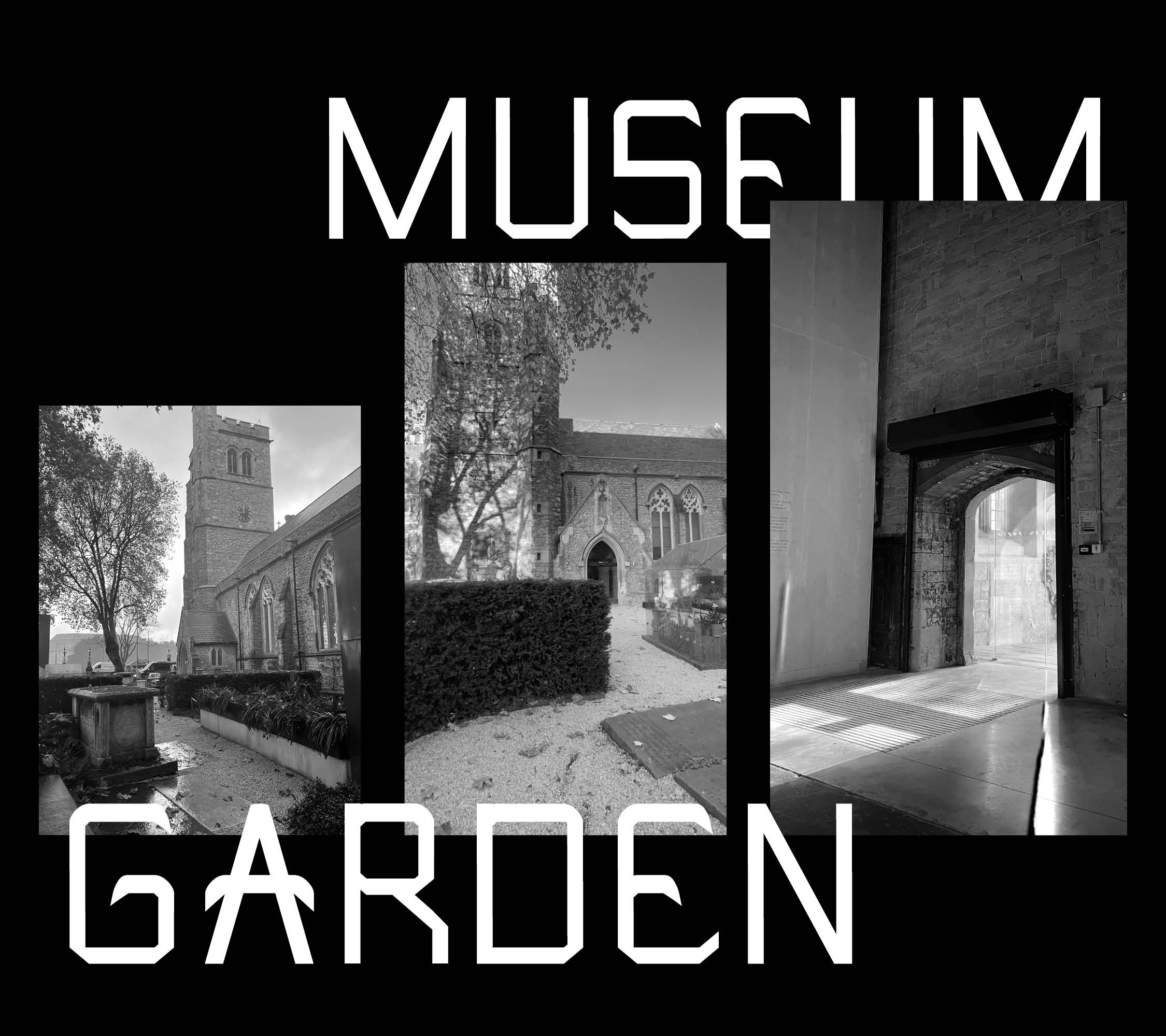
Narrativa is a semi-mono-weight sans serif modular font that captures the history of calligraphy, the gothic architecture of the Garden Museum, and the objects exhibited. It utilizes an angular base but rounded ascenders and descenders, reminiscent of the museum’s flora and tall arches. Unique features include the flicked hooks and tails on certain letters, inspired by the evolution of calligraphy during the 11th century to the present day. This typeface suits film posters, displays, and headings; it is also perfect for branding.